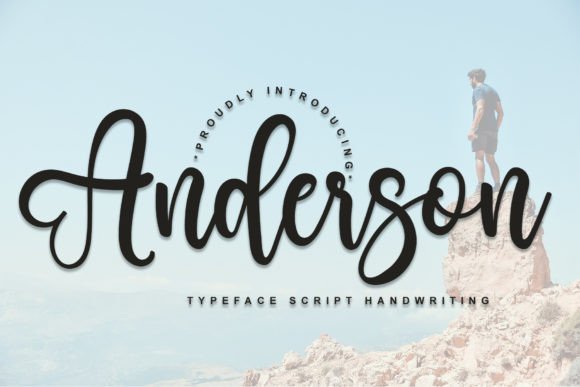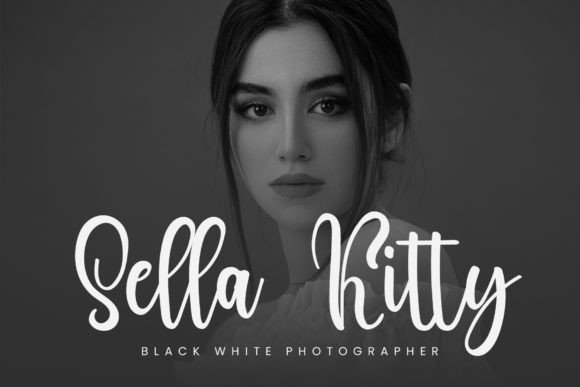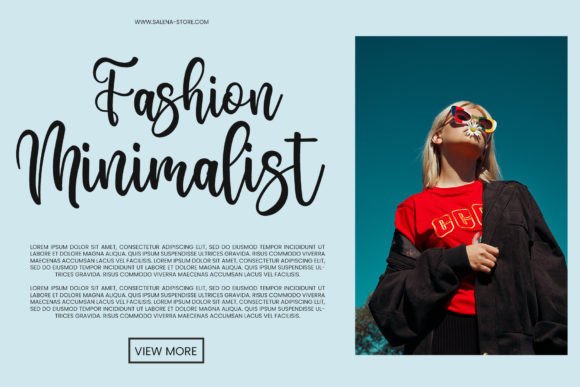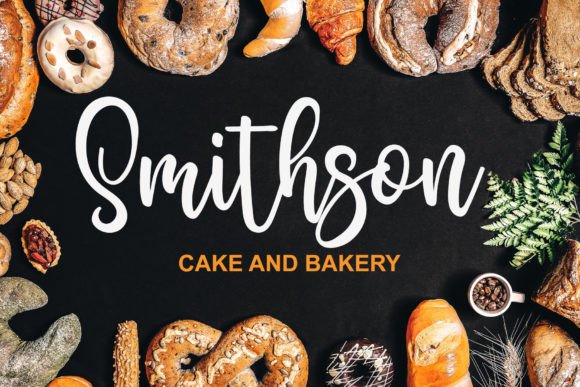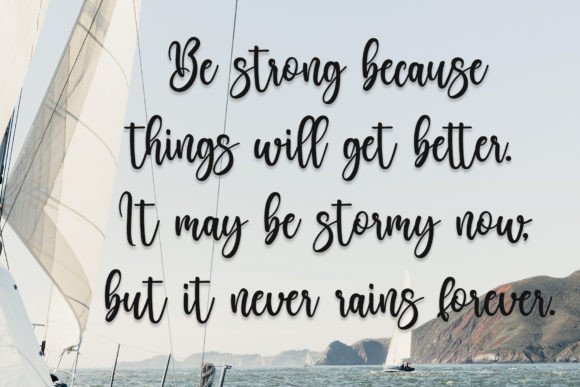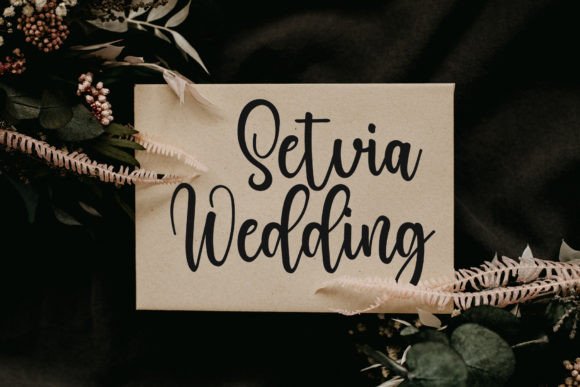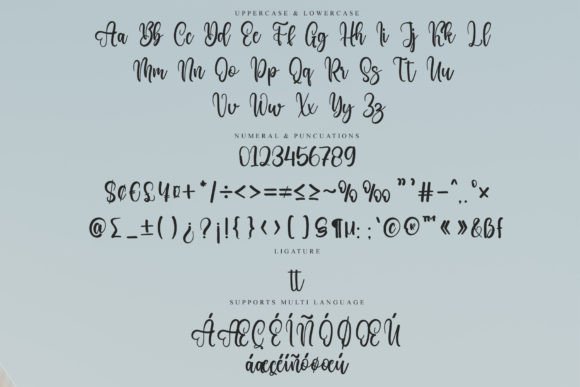
Anderson Font
About Anderson Font
Anderson is a stylish and dainty script font. It is suitable for any projects such as logos, branding projects, labels, photography, watermark, special events, and all your other lovely projects that need a beautiful script taste.